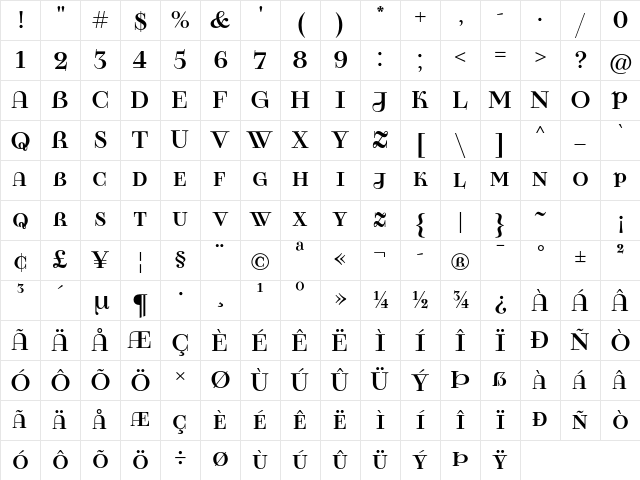
TT Tsars E Trial Bold Free Font
TT Tsars E Trial Bold
Designer: TypeType
Design Context for TT Tsars E Trial
TT Tsars E Trial is a composed and adaptable typeface that performs quietly and consistently across a wide range of design contexts. Its bold stroke weight gives it real presence on the page.